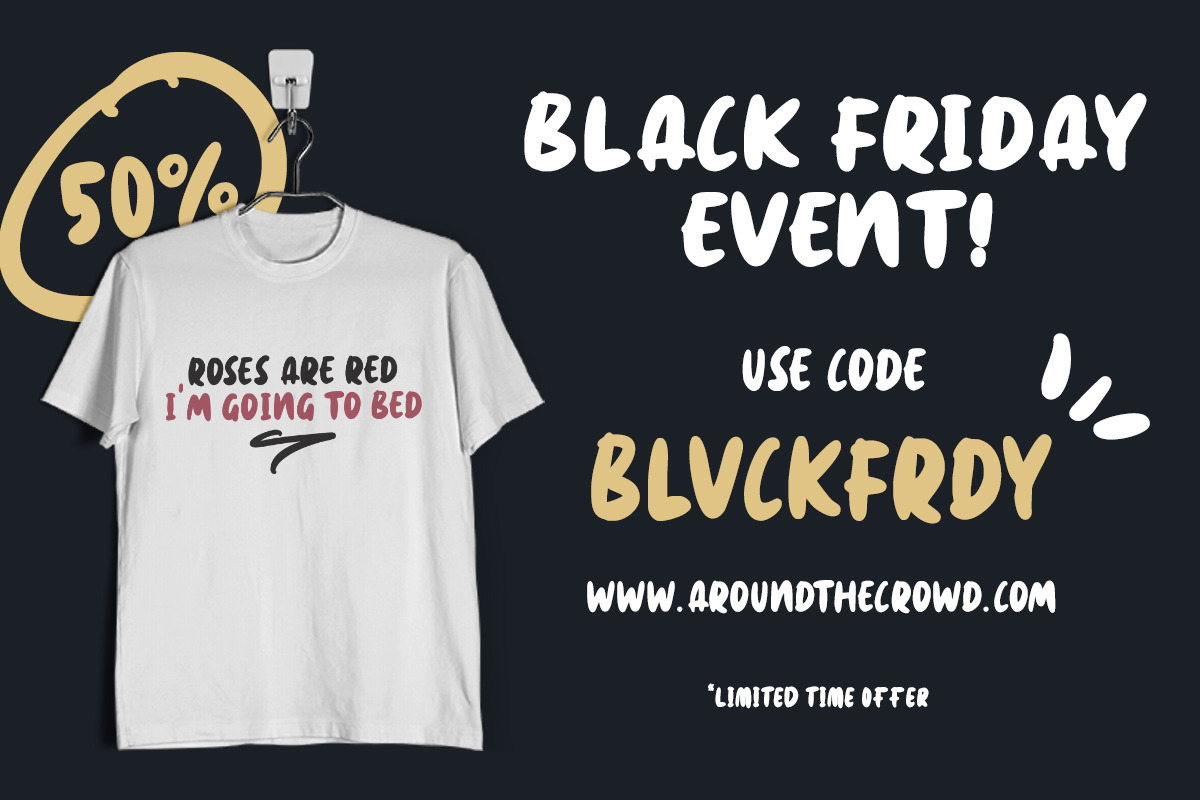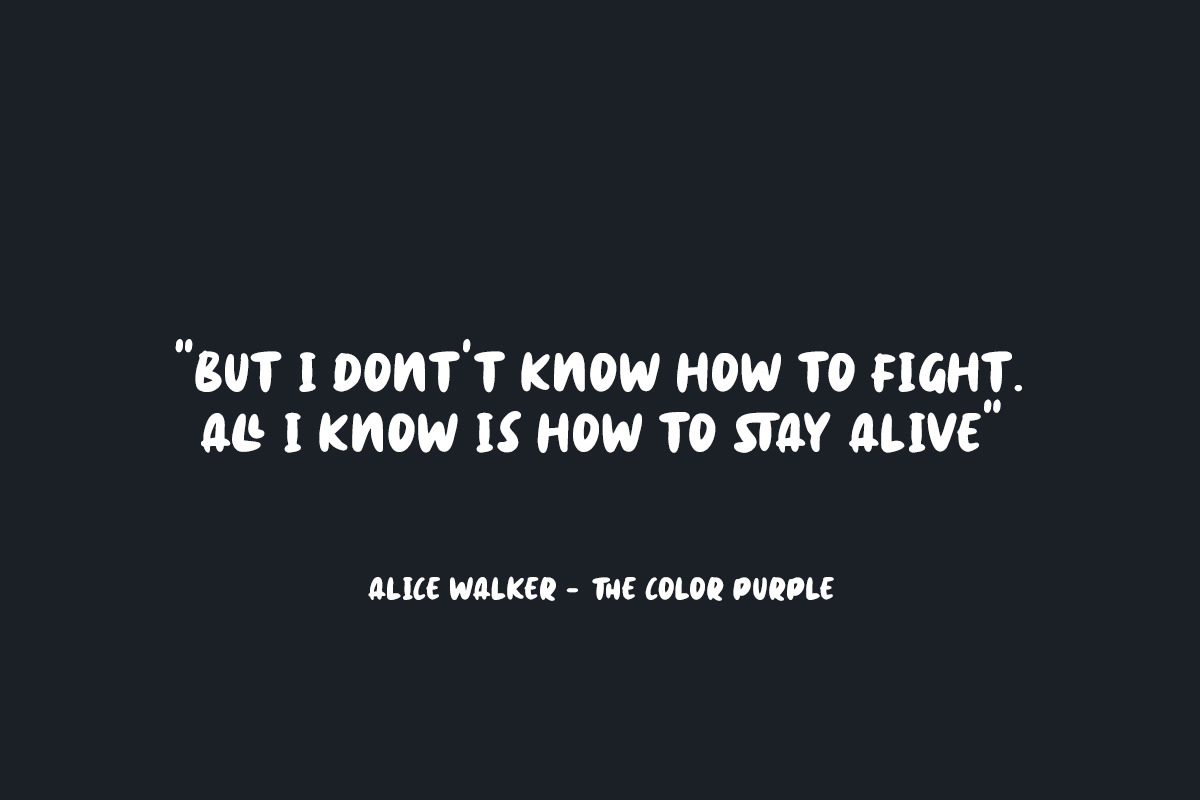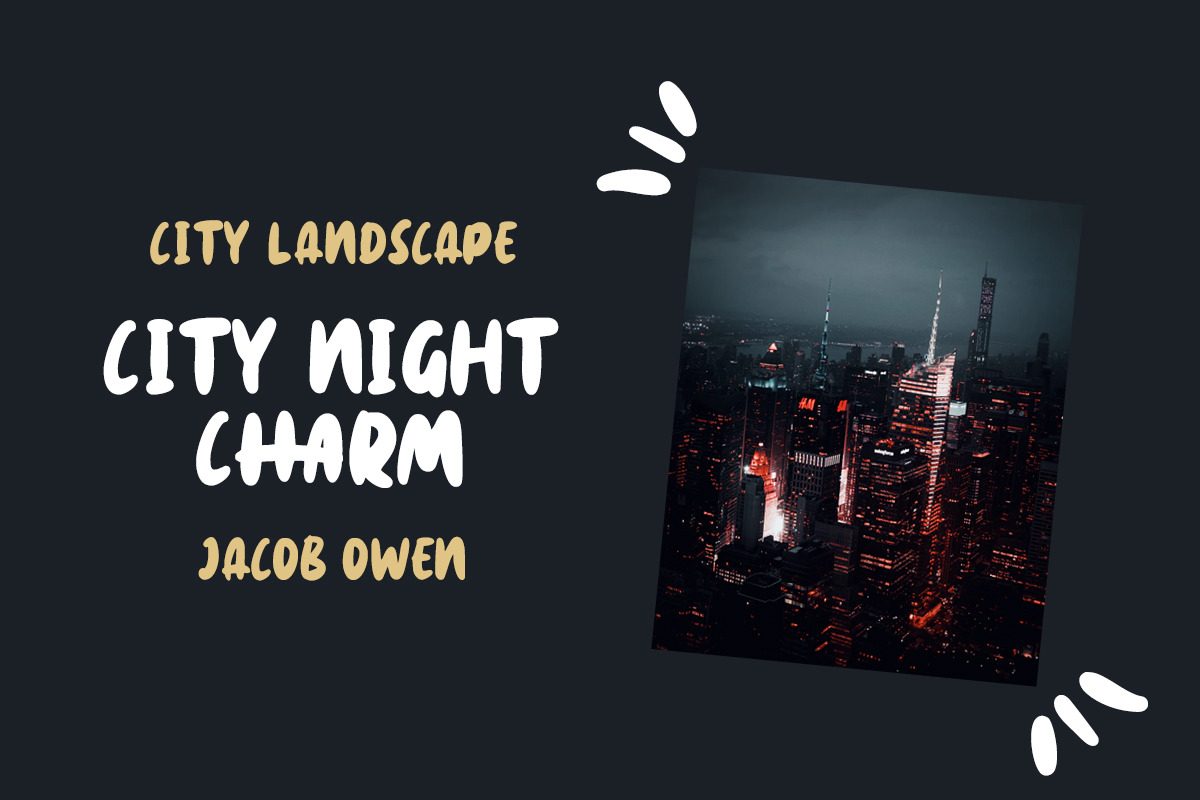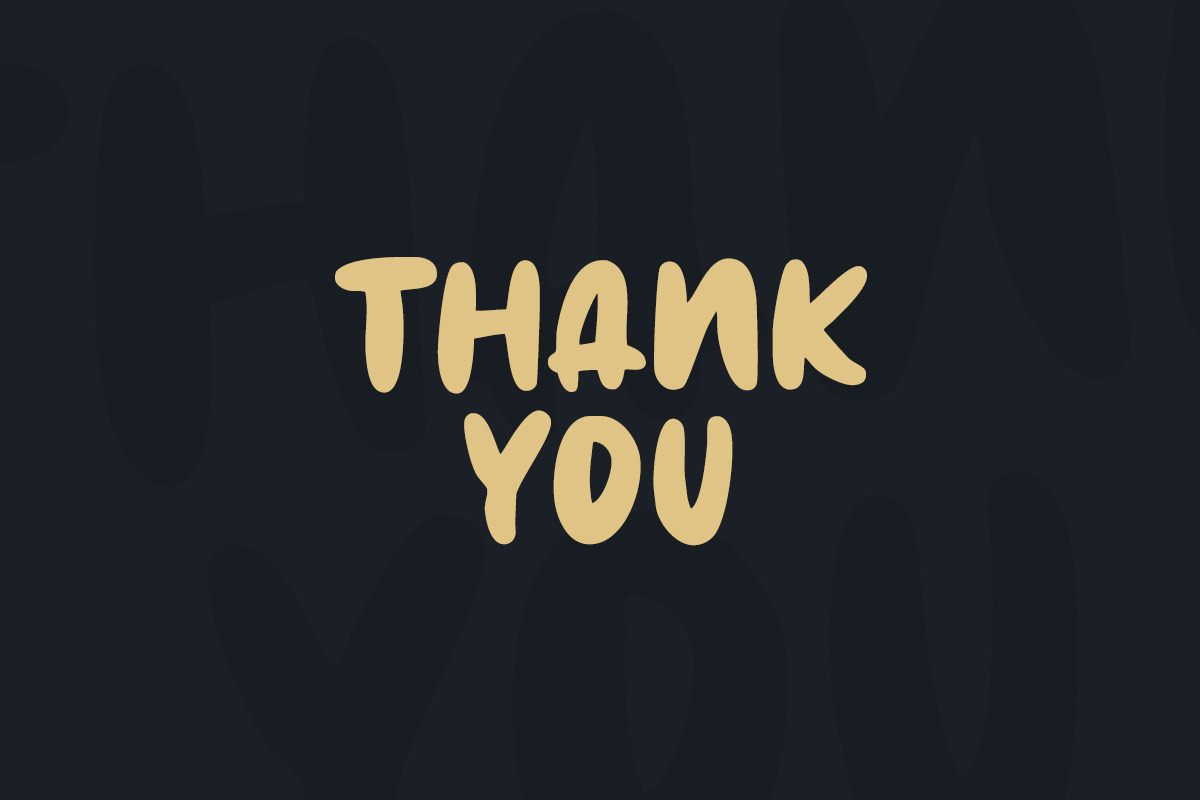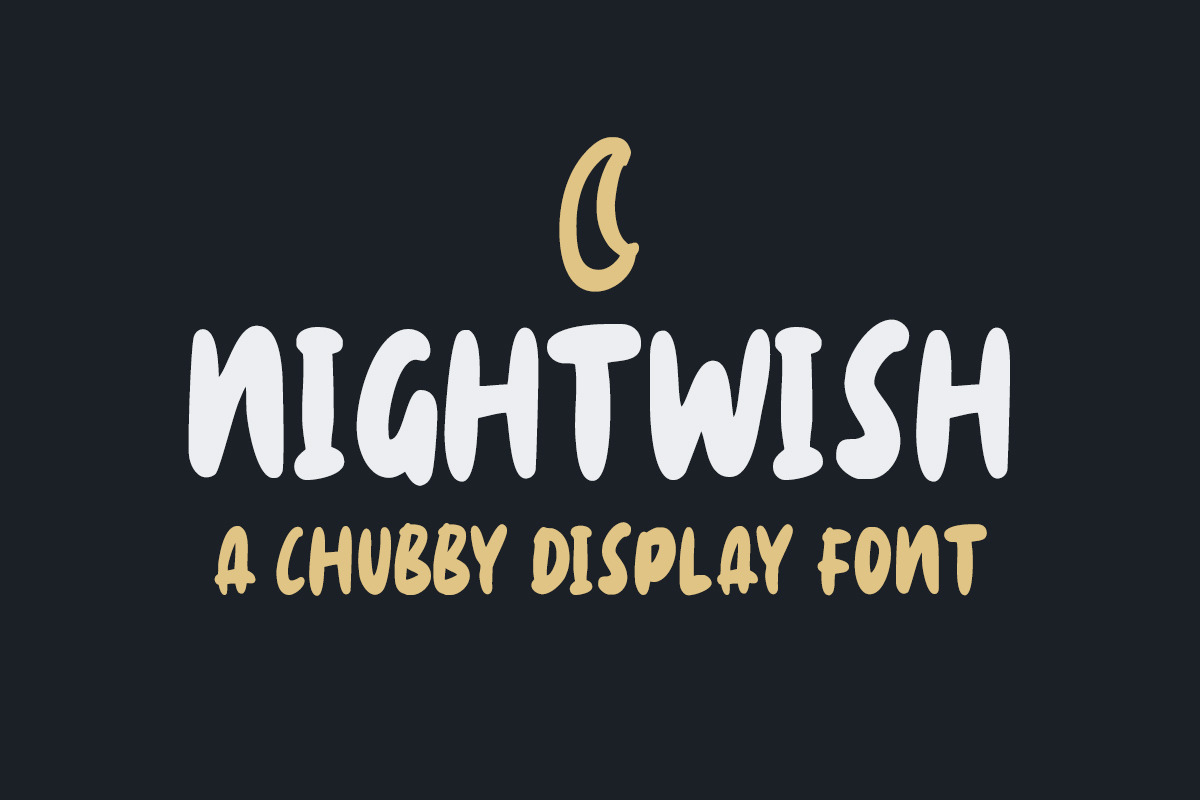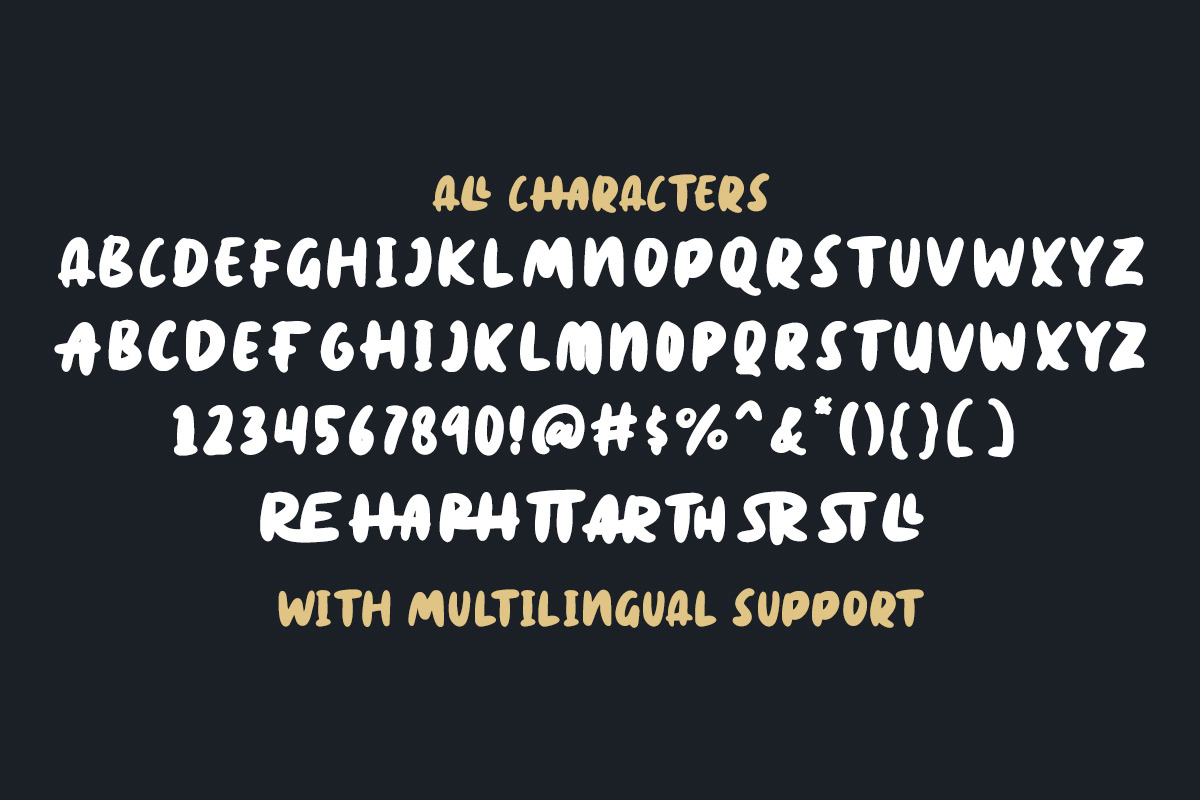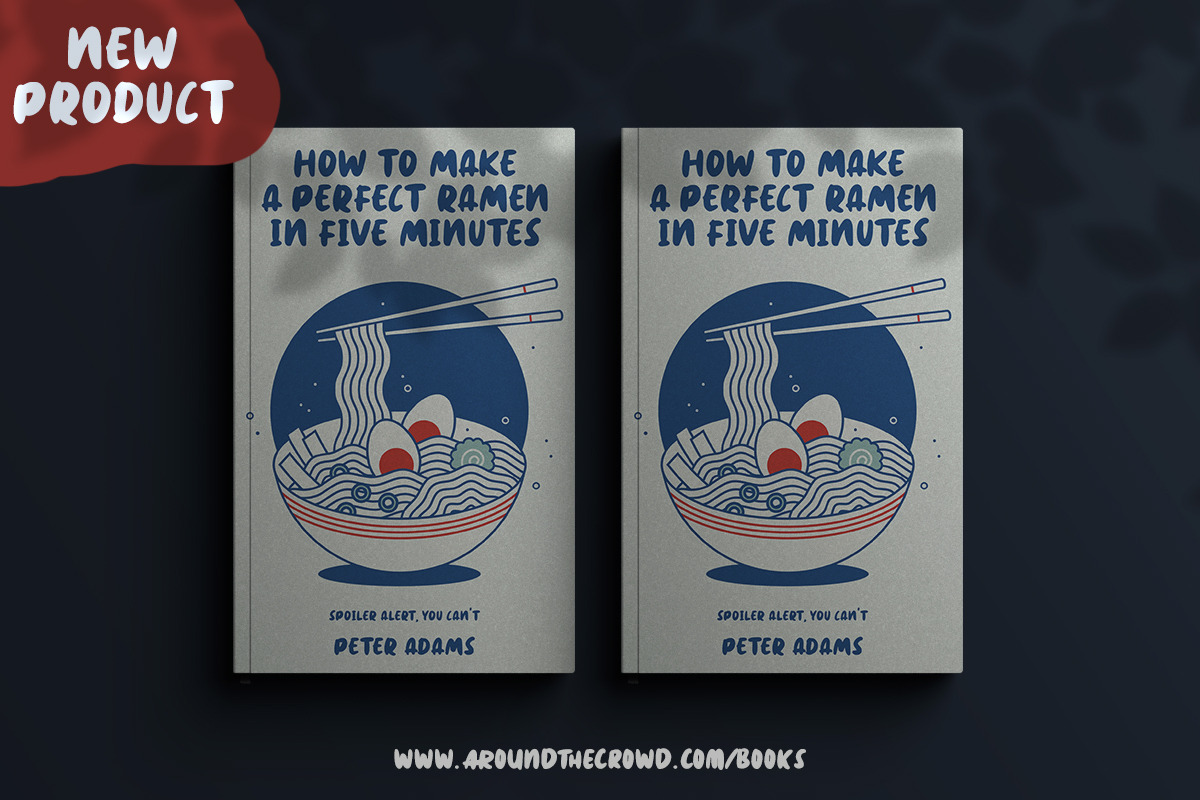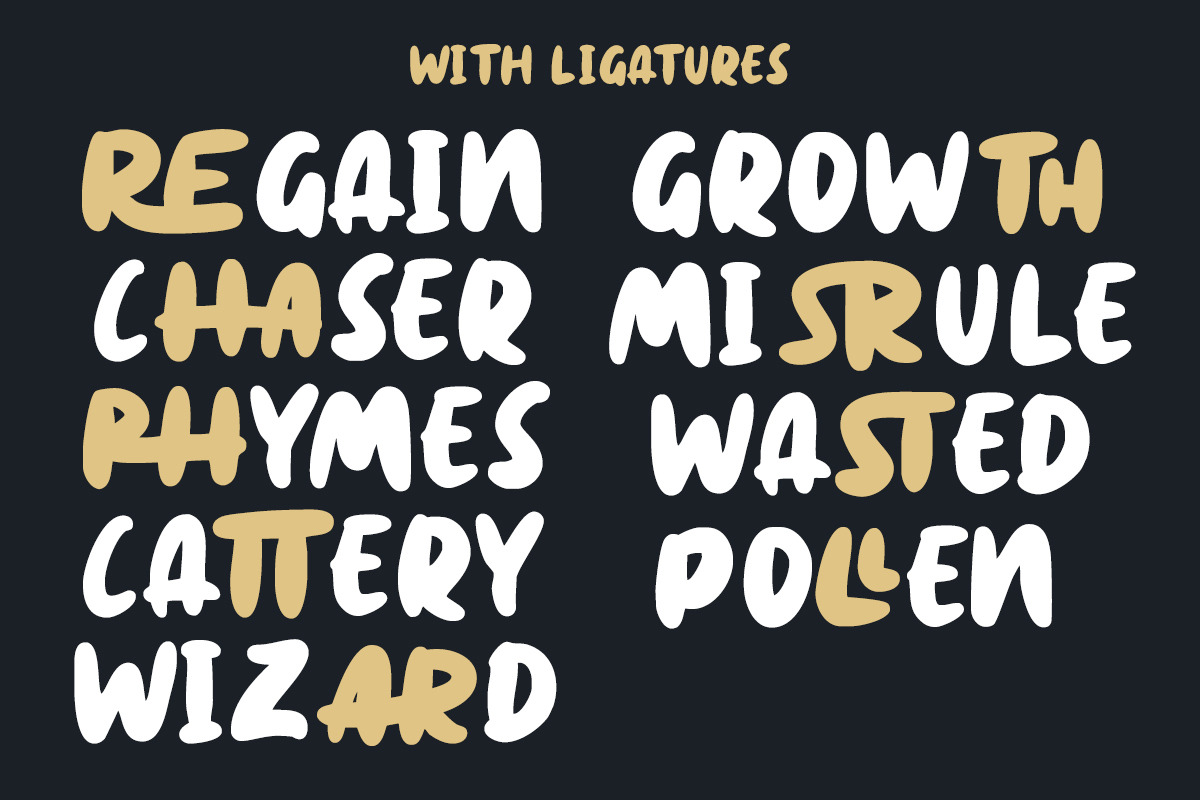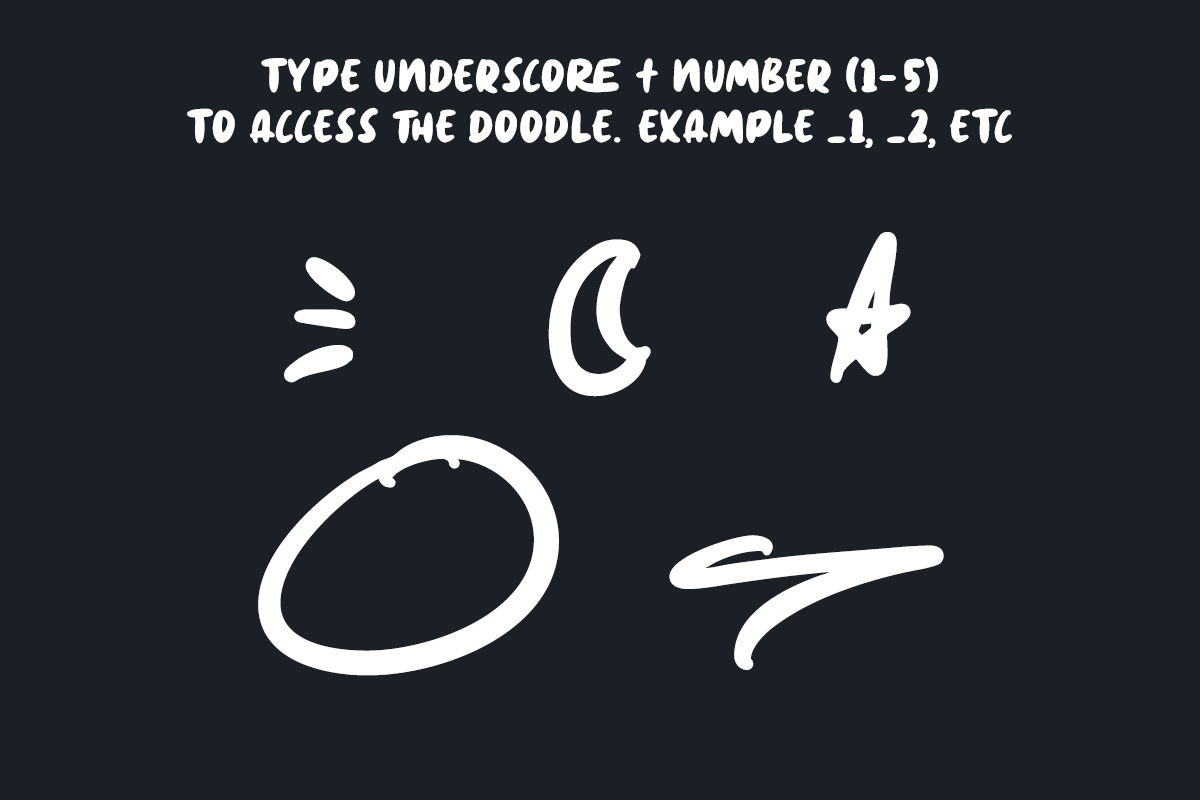
Nightwish - Chubby Display Font
Introducing Nightwish! Nightwish is a chubby display font that fit perfectly into a cute and playful design such as branding, packaging, logotype, logo, quotes, children books, etc. to access the doodle, simply type underscore + number (1-5). example, _1, _2, _3.
- lowercase and uppercase
- swash
- Stylistic alternates character